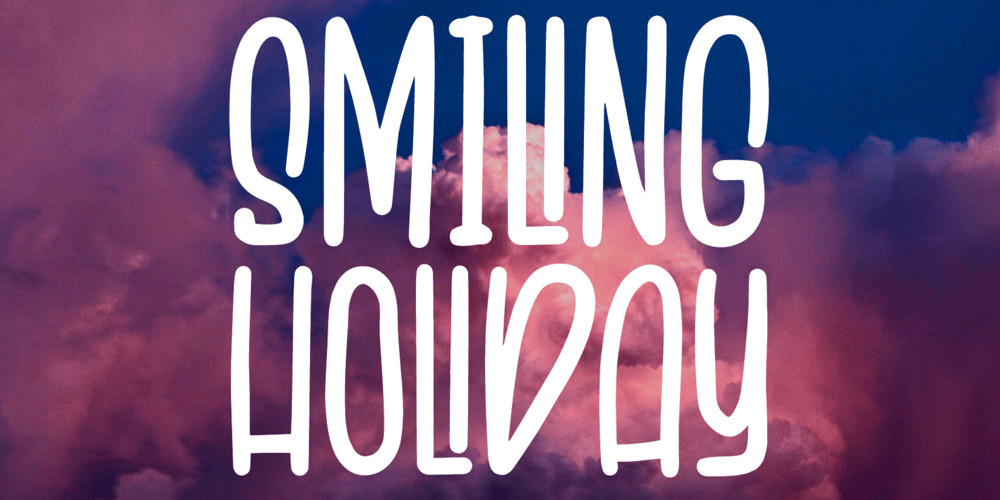
Smiling Holiday
Smiling Holiday font
Smiling Holiday Font Family was designed by Irpan Maulana and published by Create Big Supply. Smiling Holiday contains 1 styles and family package options. Introducing Smiling Holiday, a delightful and playful sans serif font that brings a sense of fun and joy to your designs. With its cute and unique style, Smiling Holiday is the perfect choice for projects that require a touch of whimsy and lightheartedness. Whether you’re creating greeting cards, children’s books, or party invitations, this font will add a cheerful and playful vibe.Smiling Holiday features both uppercase and lowercase letters, allowing you to mix and match for added creativity. The inclusion of numbers and punctuations ensures versatility and seamless integration into your designs. Express yourself in various languages with the font’s multilingual support, making it accessible to a global audience.With PUA encoding, accessing all the glyphs and decorative swashes of Smiling Holiday is a breeze. Add extra flair to your designs with the included ligatures, enhancing the overall visual appeal.